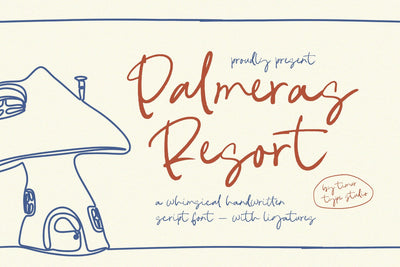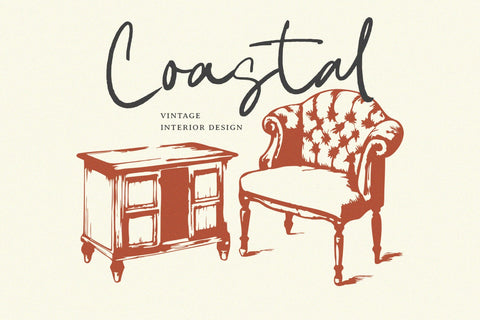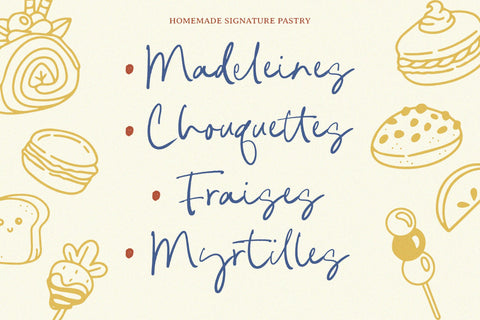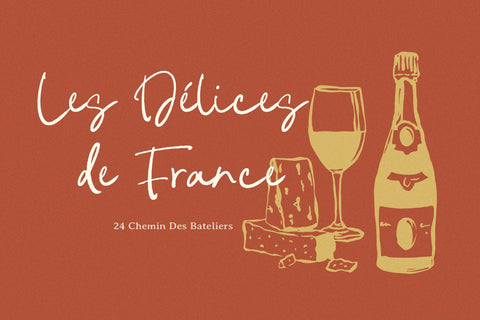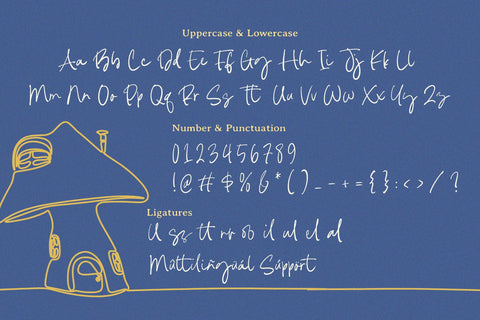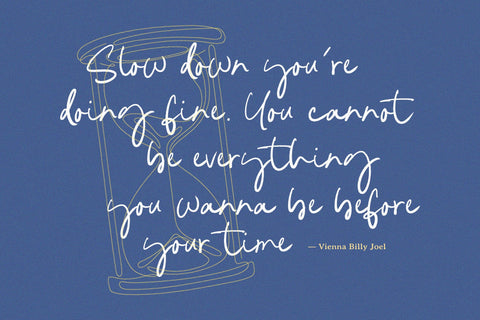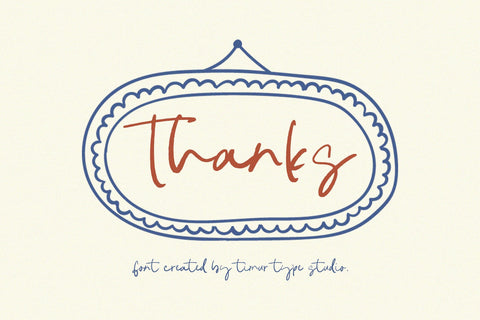
Palmeras Resort - Whimsical Handwritten Script Font
Palmeras Resort is a Whimsical Handwritten Script Font
This font is a whimsical handwritten script font that captures the carefree spirit of tropical getaways. With its charming ligatures and flowing curves, this font exudes a warm, inviting vibe perfect for beach-themed designs, travel brochures, or casual invitations. Each letter dances playfully, making your text feel relaxed, just like a day at a sun-kissed resort. Ideal for adding a touch of paradise to any project!
Palmeras Resort Font also supports multilingualism